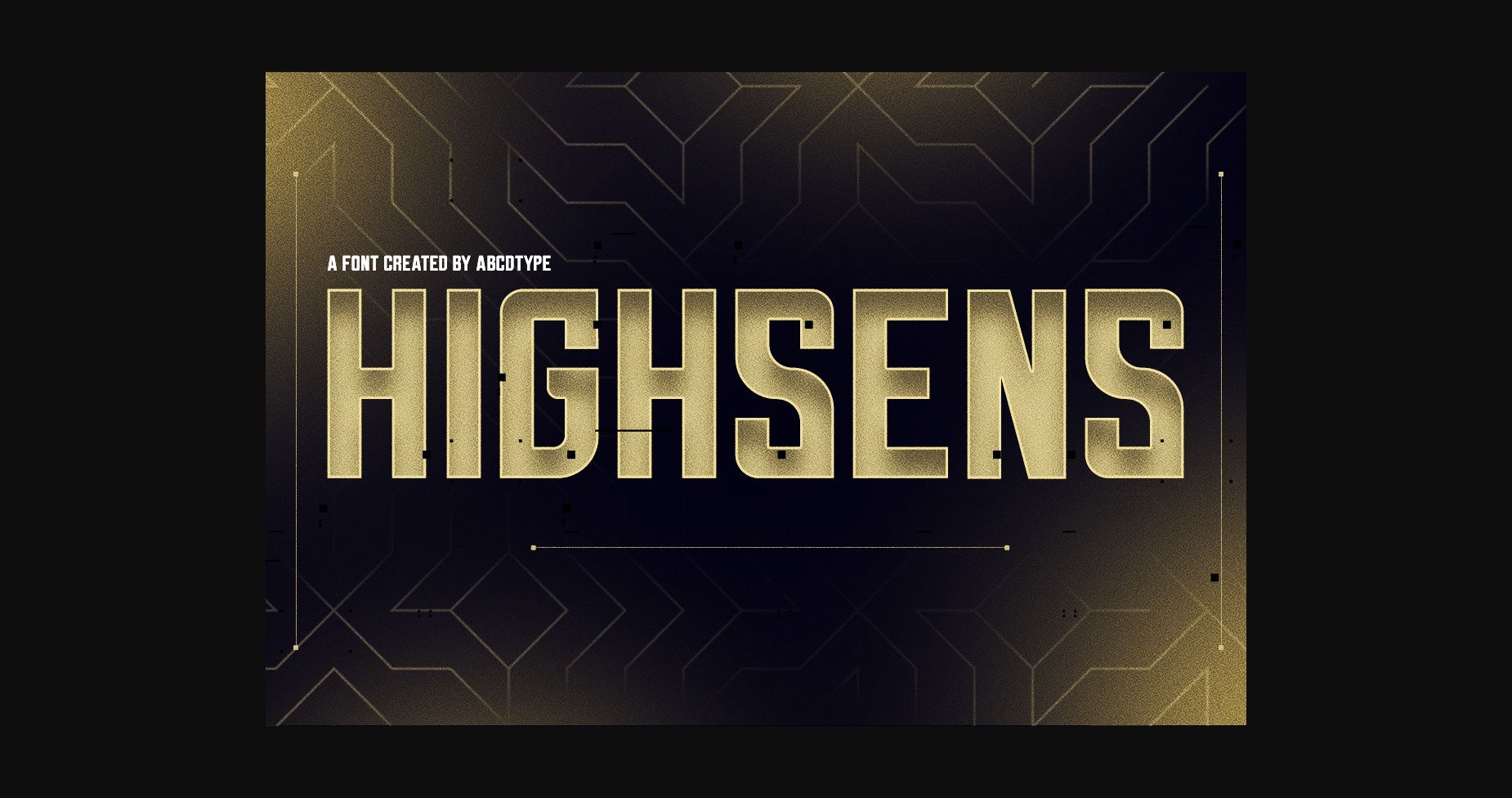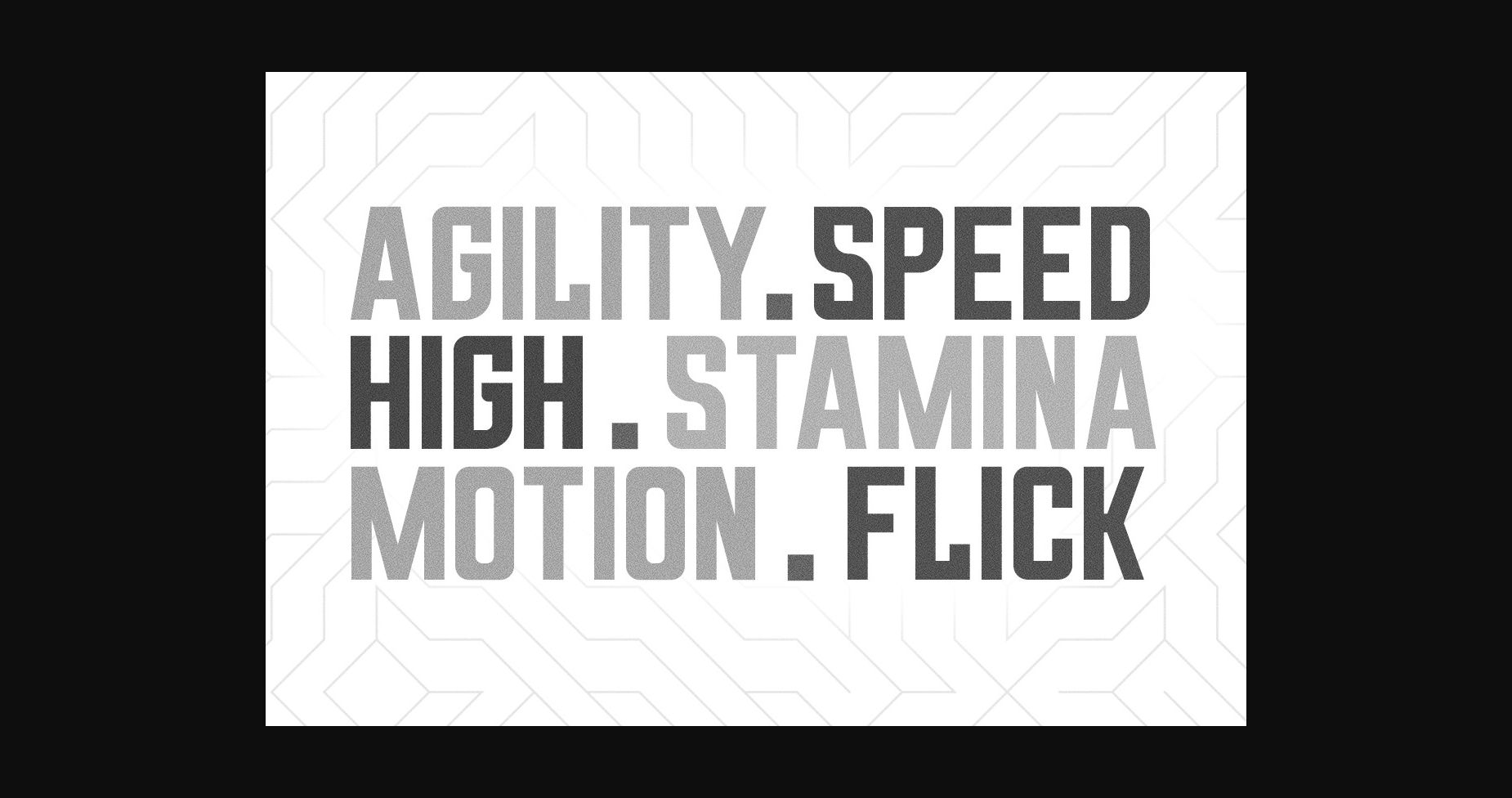
HomeSans Serif FontsHighsens Font Sans Serif Fonts Highsens Font FacebookXPinterestWhatsApp 1 of 4 ... Highsens Font Poster 2... Highsens Font Poster 3... Highsens Font Poster 4... About Highsens Font Highsens is a standout Sans Serif font. This love font works great for headers, tournaments, social media esports, and any kind of sports design. DOWNLOAD NOW People also explored Soul King Font Ashelynn Duo Font Tiffanyed Font Farmhouse Greatness Font Sunday Night Script Font Flowers Font Cherish Font Agezka Font Fountain Head Font 336 0 TagsHighsens Font Previous articleMangrove FontNext articleComing Font LEAVE A REPLY Cancel reply Comment: Please enter your comment! Name:* Please enter your name here Email:* You have entered an incorrect email address! Please enter your email address here Website: Save my name, email, and website in this browser for the next time I comment. Personal Use Free Allea Sweet Personal Use Free Read more about this font Brandon Bromley Personal Use Free Read more about this font Rheiborn Personal Use Free Read more about this font Mail Ray Stuff Personal Use Free Read more about this font BLOG Exploring Font Trends Shaping Communication in the Digital Era Fonts, like all design elements, are subject to trends. They play a crucial role in communicating a brand's personality,... The 10 Best Handwriting Fonts to Add Personality to Your Designs Modern Sans-Serif Fonts That Brands Love in 2025 Top 7 Google Fonts Alternatives for Faster and Privacy-Friendly Web Design (2025)